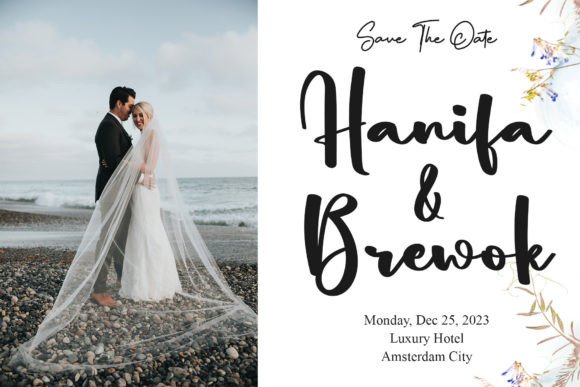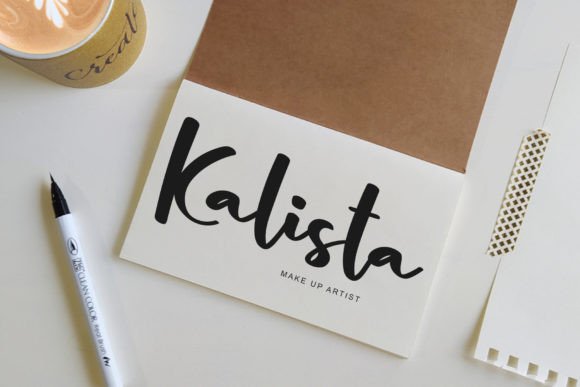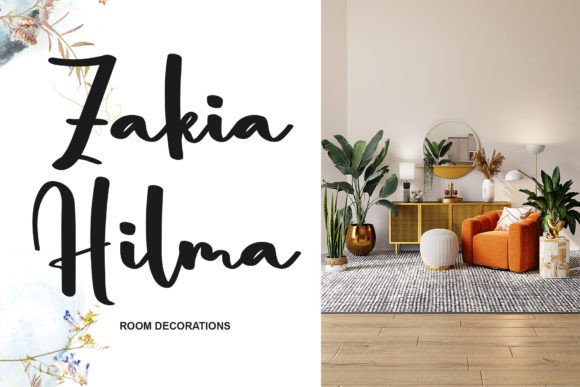
Introduction to Monday Wedding Font
Do you remember that moment when you finally found the perfect font to match your creative vision? For designers, it’s like discovering a hidden treasure that elevates your project to the next level. And today, we’re excited to introduce you to a stunning font that’s sure to become your go-to design resource – the Monday Wedding Font.
This elegant handwritten font boasts a contemporary atmosphere and impeccable form, making it a perfect addition to any creative project. With its balanced and varied style, the Monday Wedding Font is designed to enhance the beauty of your designs, whether you’re working on a wedding invitation, a blog post, or a social media graphic.
Key Features of Monday Wedding Font
- High-quality design resource with a unique, elegant style perfect for creative projects.
- Includes multiple font styles and weights to suit various design needs.
- Perfect for wedding invitations, event branding, and other creative projects requiring a touch of sophistication.
Honest Review: Monday Wedding Font
I recently stumbled upon the Monday Wedding Font while searching for a free design resource for a creative project. I was pleasantly surprised by the quality of this font.
What works well: ✨ The Monday Wedding Font has a beautiful, elegant script that adds a touch of sophistication to any design. It’s perfect for wedding invitations, wedding stationery, and other wedding-related projects. The font is also available for free download, making it a great option for designers on a budget.
- High-quality, elegant script
- Perfect for wedding-related projects
Tips for Getting the Most Out of Monday Wedding Font
Use the Monday Wedding Font on a transparent background to create a beautiful and elegant design. Experiment with different font sizes and styles to add visual interest to your design. Combine the font with other design elements, such as images and graphics, to create a unique and creative project.
Common Use Cases for Monday Wedding Font
The Monday Wedding Font is ideal for wedding invitations, save-the-dates, and other wedding-related designs. It can also be used for creative projects, such as quotes, posters, and social media graphics. With its high-quality design and transparent background, the Monday Wedding Font is a great resource for designers and non-designers alike.